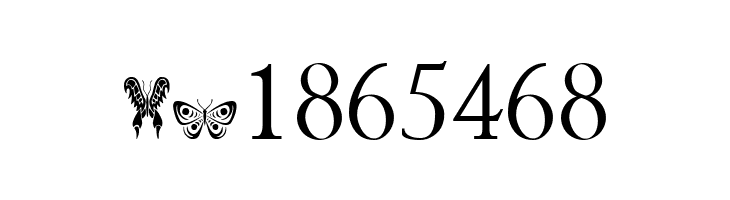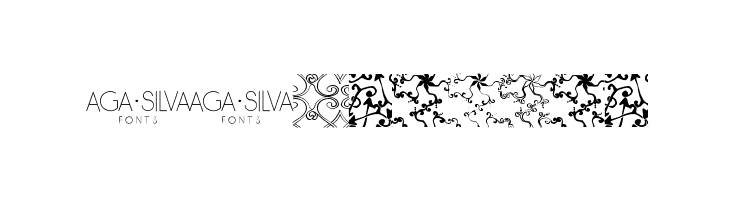
A decorative set of butterfly illustrations in place of traditional characters.
A collection of intricate damask-inspired ornamental designs for elegant decoration.
( Fonts by Kenneth Hirst )
A collection of intricate alchemical symbols with historical significance.
A collection of playful Halloween-themed illustrations replacing traditional characters.
A whimsical collection of goblin illustrations, each with unique character and style.
( Fonts by www.empire-of-the-claw.com )
A collection of dingbats featuring classic B-movie poster imagery.
A decorative font with playful Christmas-themed illustrations.
A decorative font featuring Christmas-themed illustrations.
A decorative collection of cupid-themed illustrations with playful and romantic motifs.
A decorative collection of heart-themed symbols with varied patterns.
( Fonts by Luis Angel Uribe - luisangeluribe.wordpress.com )
A whimsical, decorative font with playful, creature-like embellishments.
A modern, striped font with bold geometric shapes and a dynamic linear texture.
( Fonts by Daniel Gauthier )
A whimsical font with characters as cartoonish voodoo dolls.